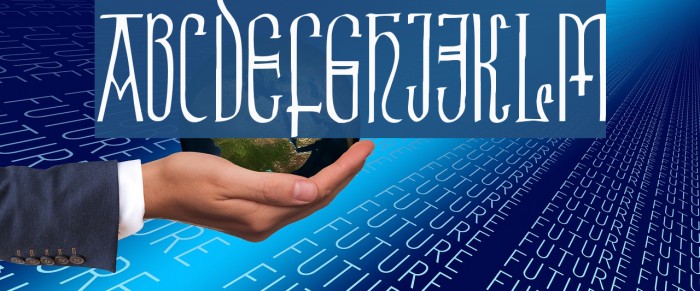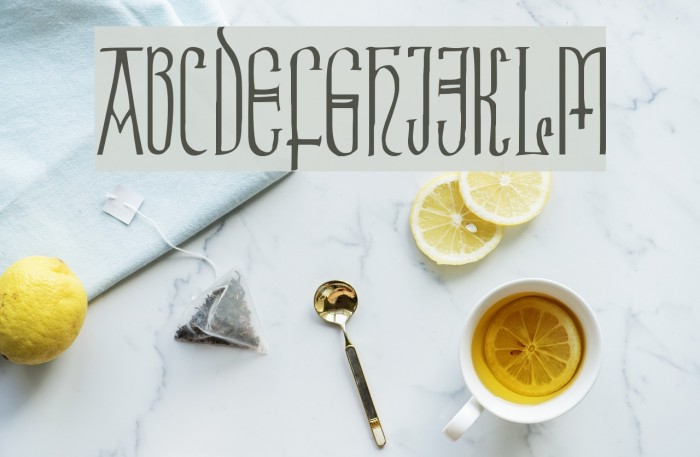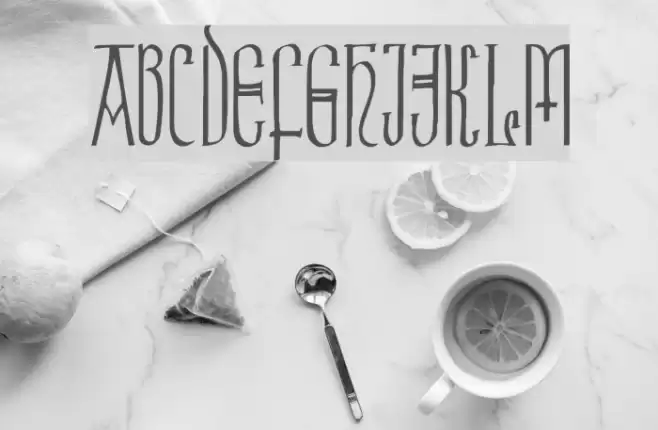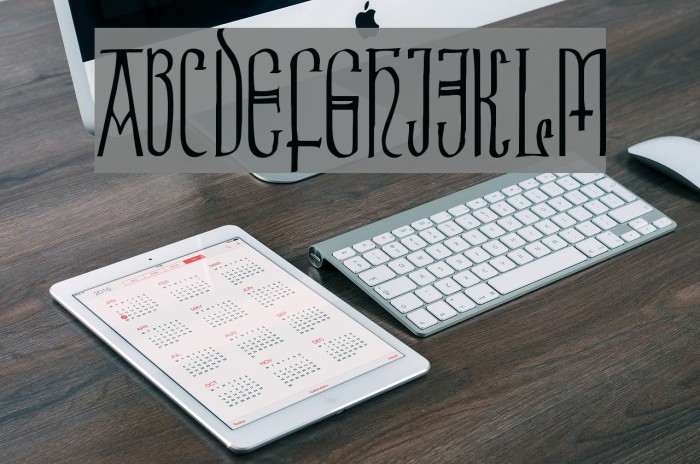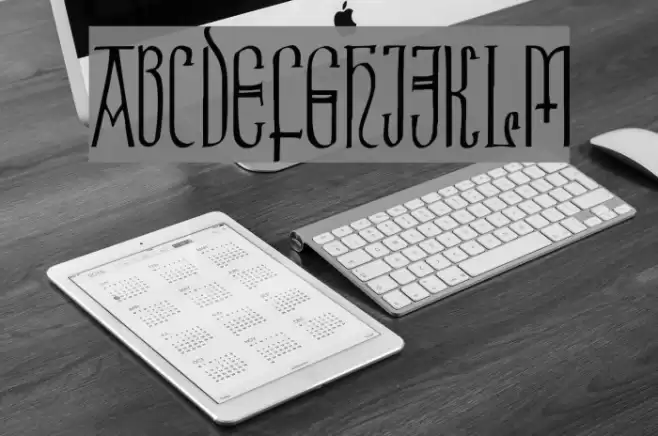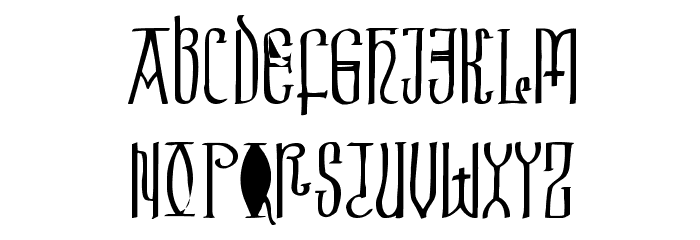
Brigida Font
Brigida Description
This font features a highly decorative and artistic style, characterized by its elongated and narrow letterforms. The uppercase letters exhibit a unique blend of geometric and organic shapes, with some characters incorporating intricate curves and swirls. The overall design is reminiscent of Art Nouveau influences, with a modern twist. The lowercase letters maintain the same stylistic elements, ensuring consistency throughout the typeface. The numbers and special characters are equally ornate, making this font ideal for projects that require a touch of elegance and sophistication. The spacing between characters is tight, which enhances the cohesive look of the text.
| Width | Condensed |
| Overall Style | Artistic and Decorative |
| Use Case | Logos, Headlines, Decorative Text |
| Proposed Projects | Ideal for wedding invitations, luxury branding, artistic posters, and decorative book covers. |